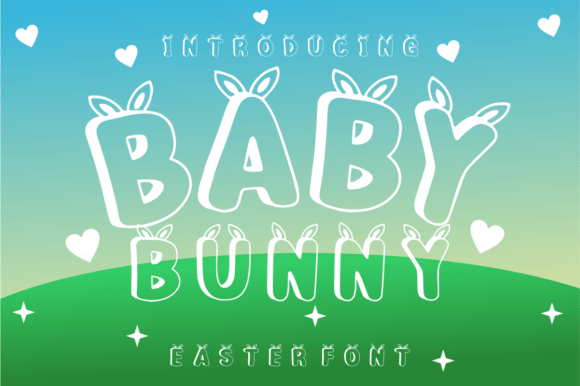
Get Ready to Hug Your Design with the Cutest Font Ever!
Do you remember the first time you saw a cute bunny and couldn’t help but smile? That’s exactly what happens when you use the Baby Bunny Font in your designs! This adorable font is designed to capture the essence of spring and childhood, making it perfect for Easter-themed projects, nursery decor, and kids’ branding.
Baby Bunny Font is more than just a pretty face – it’s a versatile tool for designers who want to add a touch of whimsy to their work. With its unique bunny ear details and child-friendly aesthetic, this font is a must-have for anyone looking to create playful and engaging designs. Whether you’re a seasoned pro or a crafty beginner, Baby Bunny Font is sure to bring a smile to your face and a spring to your step.
Baby Bunny Font Key Features
- Font Style: A cute, handwritten font with a playful and endearing feel, perfect for children’s products or family-related designs.
- Unique Characteristics: The font features a unique, hand-drawn style with irregular letterforms and a whimsical feel, adding a touch of personality to any design.
Designer Review: Baby Bunny Font
Overall, I was quite excited to dive into the Baby Bunny Font, but my experience was a mixed bag. Let’s break it down.
- The whimsical, playful feel of the font is undeniably charming. It’s perfect for creating a lighthearted, child-friendly atmosphere in children’s books, nursery decor, or even marketing materials for family-oriented businesses.
- The font’s curves and rounded edges add a sense of softness and approachability, making it an excellent choice for designers looking to convey a sense of warmth and friendliness.
- The font’s limited character set and lack of language support may be a significant drawback for designers working on international projects or requiring a more extensive character set.
- The font’s relatively low x-height can make it challenging to read at smaller sizes or in dense text blocks, which may impact its usability in certain contexts.
Overall, the Baby Bunny Font is a sweet addition to any designer’s toolkit, but its limitations should not be overlooked. While it excels in creating a playful atmosphere, it may not be the best choice for projects requiring extensive language support or high readability at smaller sizes.
Getting the Most Out of “Baby Bunny Font”
To get the most out of “Baby Bunny Font”, try using it in combination with playful colors and illustrations. It’s perfect for:
- Infant clothing and product labels.
- Fun and whimsical social media graphics.
Alternatives to Baby Bunny Font
Lobster is a fun, casual script font suitable for creative and playful designs, such as children’s books, greeting cards, and food packaging. It’s a great alternative to Baby Bunny Font for projects that require a lighthearted, handwritten feel.
Similar to Baby Bunny Font, Lobster Font has a cursive style, but it’s more elegant and sophisticated. It’s a good choice when you want to convey a sense of friendliness without being too childish.
Great Vibes is a beautiful, elegant script font perfect for luxury brands, wedding invitations, and high-end packaging. It’s a great alternative to Baby Bunny Font for projects that require a touch of sophistication and glamour.
Differing from Baby Bunny Font, Great Vibes Font is more refined and polished. It’s a good choice when you want to convey a sense of luxury and elegance.
Alex Brush is a handwritten script font with a touch of whimsy and playfulness. It’s suitable for creative projects such as children’s books, art prints, and fashion designs. It’s a great alternative to Baby Bunny Font for projects that require a unique, hand-drawn feel.